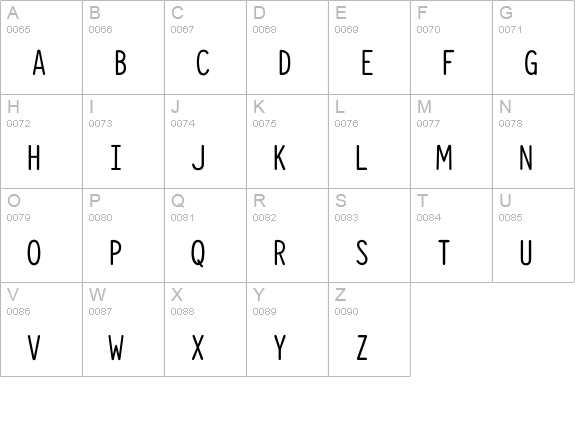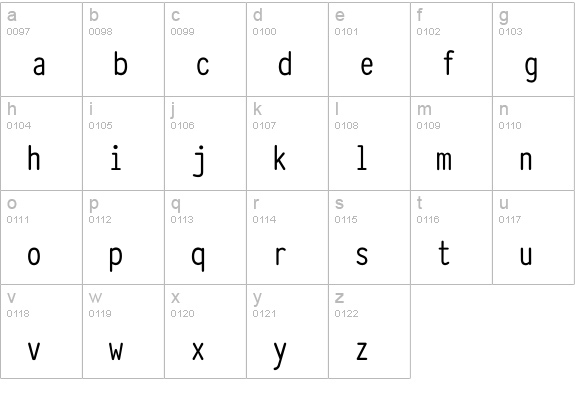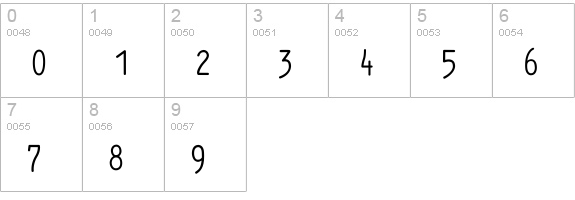
Typewriter_Condensed Font Details
Typewriter_Condensed font is a modern and sleek typeface designed to evoke the nostalgic charm of vintage typewriters. With its condensed style, this font exudes a sense of efficiency and professionalism, making it perfect for a wide range of design projects. Whether you're creating documents, posters, or digital content, Typewriter_Condensed font will add a touch of classic elegance to your work. Best of all, Typewriter_Condensed font is completely free to download at FontsMarket.com. This means you can easily access this versatile and stylish font for all your creative needs without any cost. Don't miss out on the opportunity to enhance your designs with the timeless appeal of Typewriter_Condensed font - download it today and see the difference it can make!